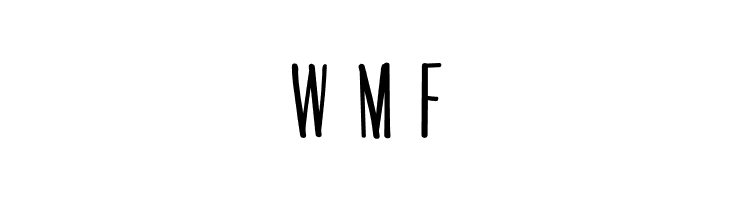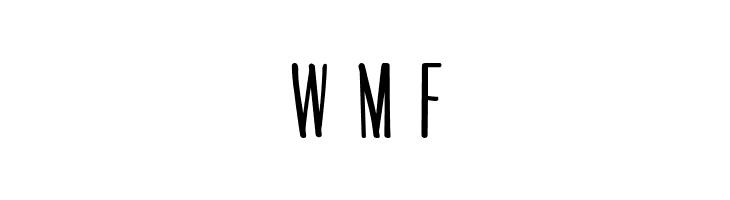
A modern, condensed font with tall, narrow letterforms and consistent stroke width.
A condensed and elongated font with a playful yet structured style.